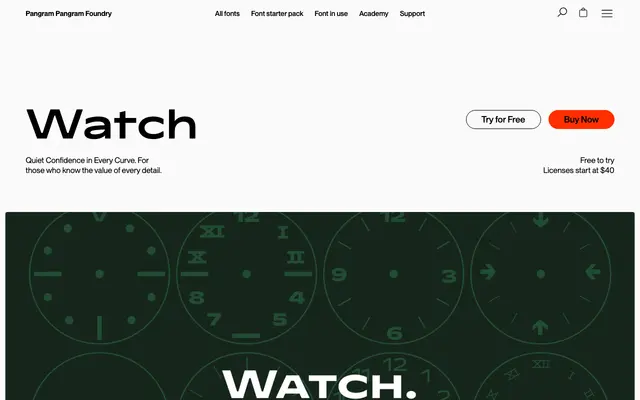
PP Watch
Pangram Foundry · Niklas Herrmann, Mat Desjardins, Francesca Bolognini · 2025
A wide luxury sans by Niklas Herrmann, Mat Desjardins and Francesca Bolognini, drawn from Swiss watch dial typography with built-in small caps.
A wide-set sans with calm horizontal posture and tight modulation, drawn from engraved watch face typography and skeleton dials in Swiss museum archives. Nine weights from Thin to Black with 994 glyphs each in a single variable file, including integrated small caps for traditional dial behaviour and an optional micro-serif stylistic set that nods to vintage ink traps. Aimed at luxury brands, high-end editorial and identity work that wants understated craft.